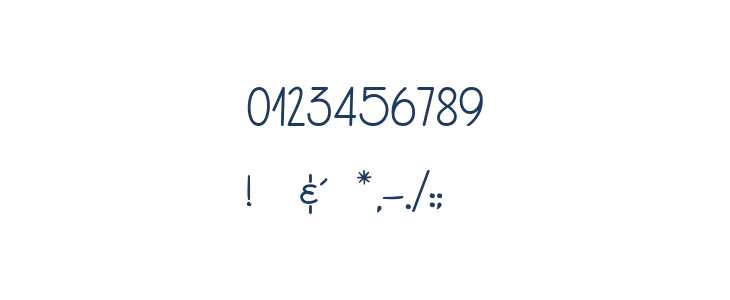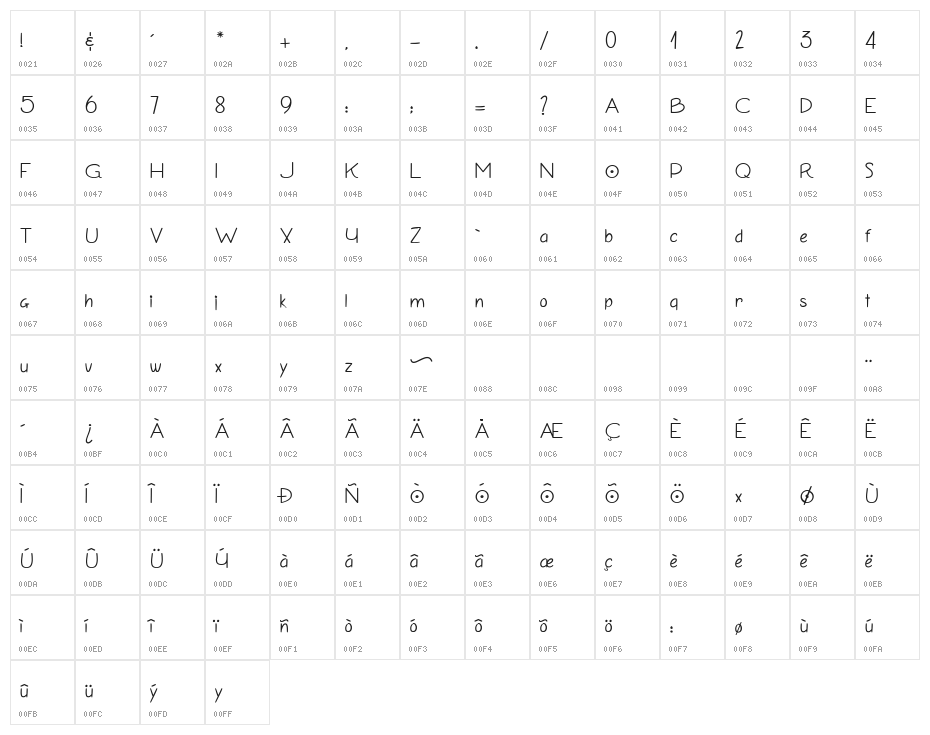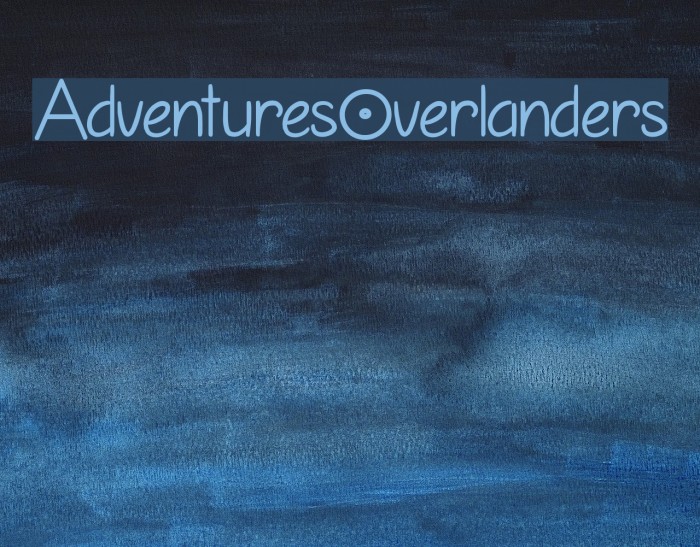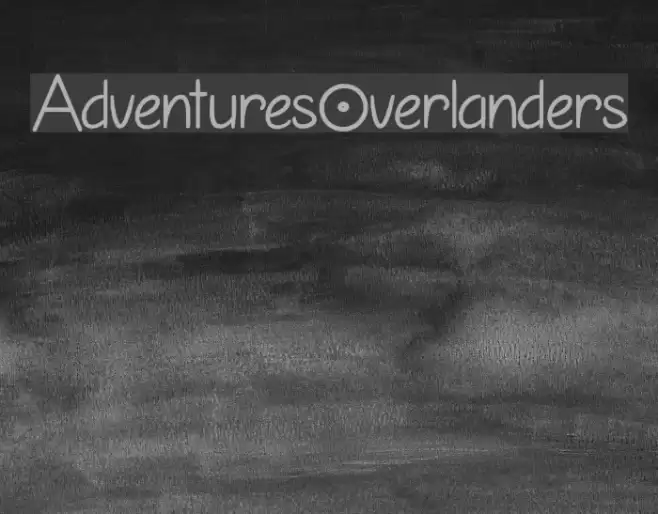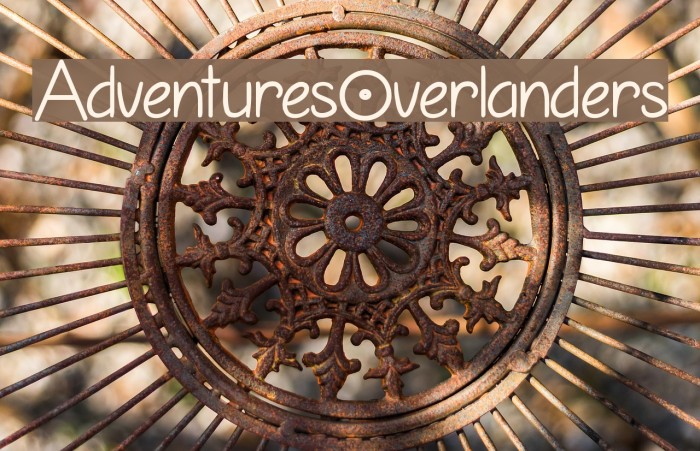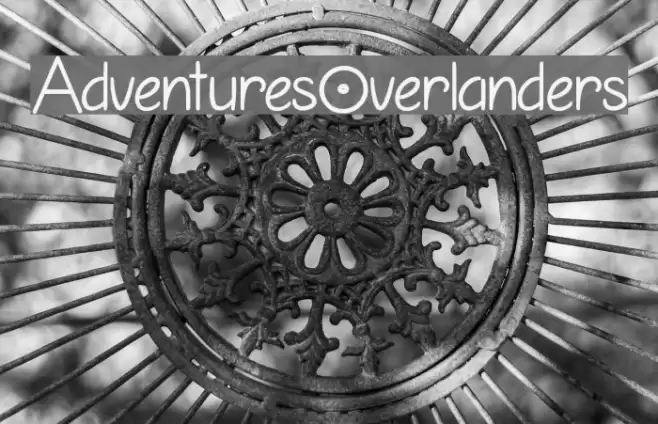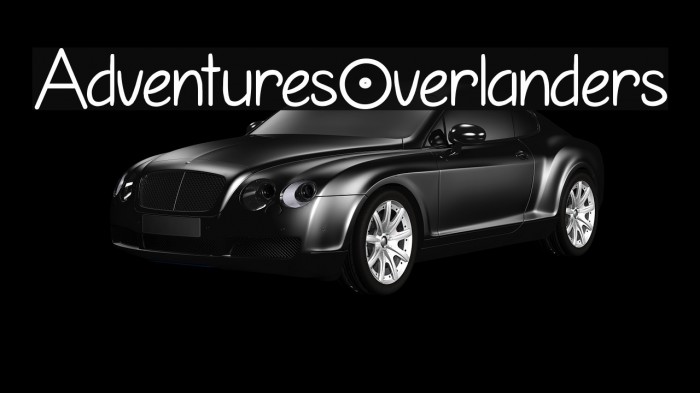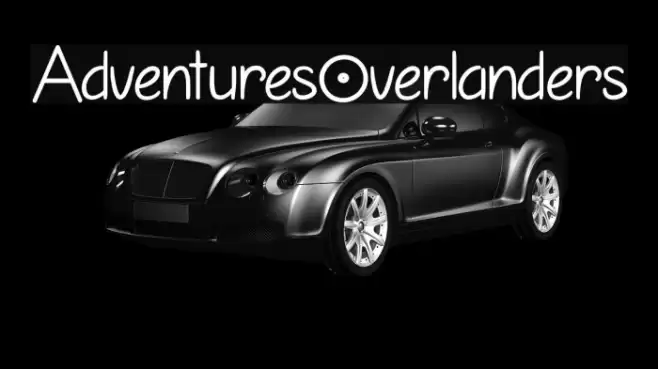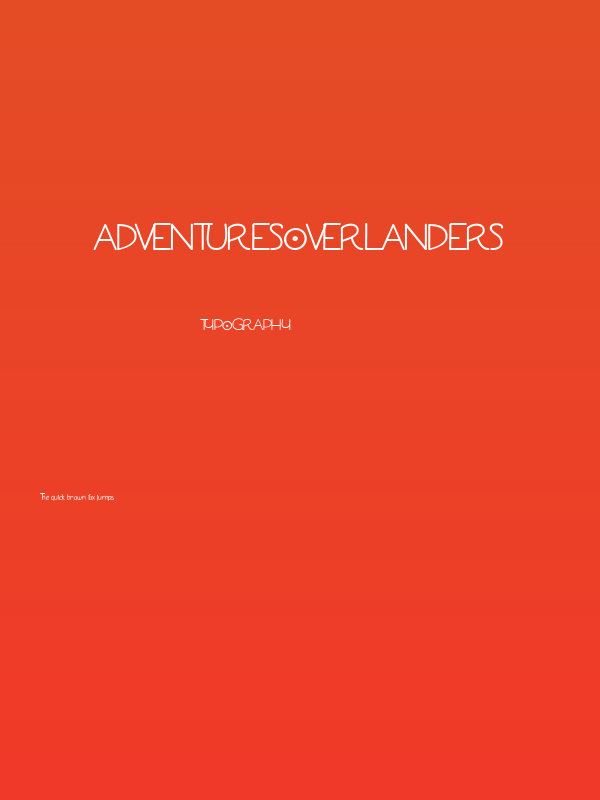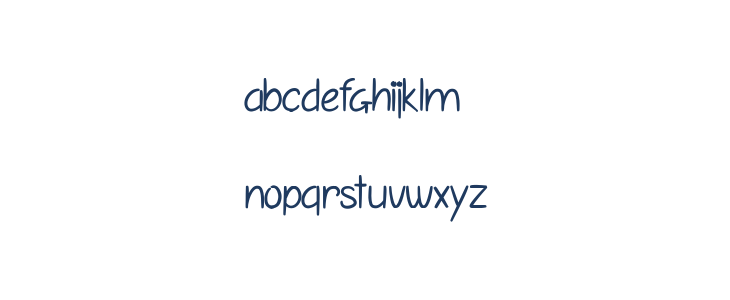
AdventuresOverlanders Font
AdventuresOverlanders Description
This font features a playful and whimsical design, characterized by its rounded and slightly irregular letterforms. The uppercase letters are bold and prominent, with unique elements such as the circular design in the letter 'O'. The lowercase letters maintain a consistent style, with a slightly more condensed appearance. The numerals are clear and easy to read, matching the overall playful aesthetic. Special characters are creatively designed, adding to the font's charm. This font's distinct style makes it suitable for projects that require a fun and engaging look.
| Proposed Projects | Ideal for children's books, playful branding, creative posters, and invitations. |